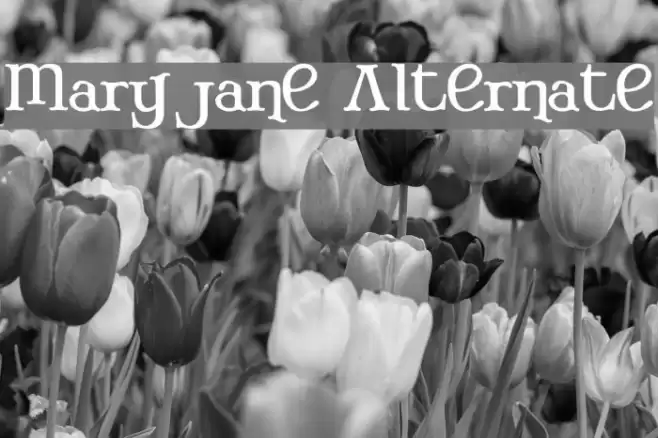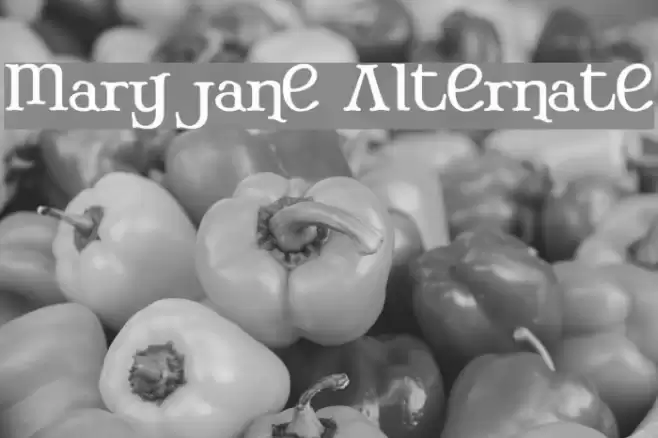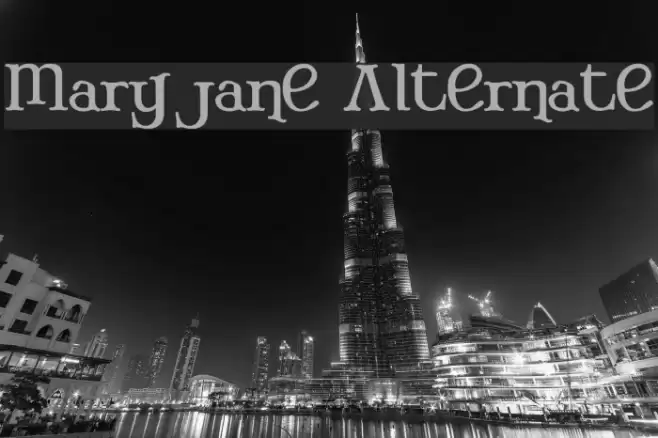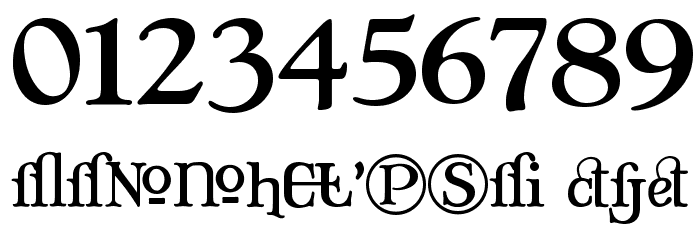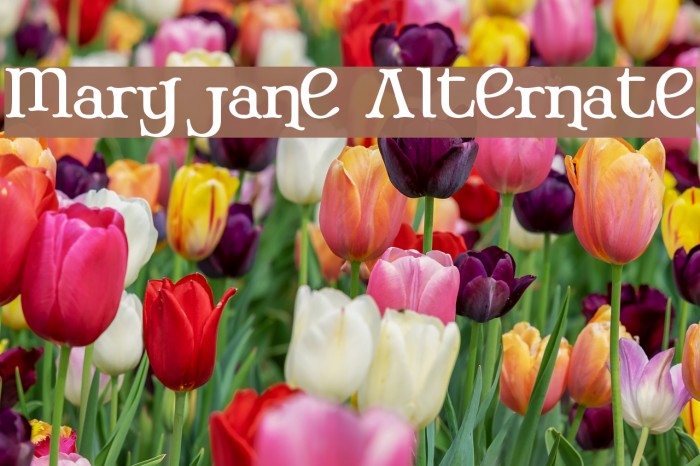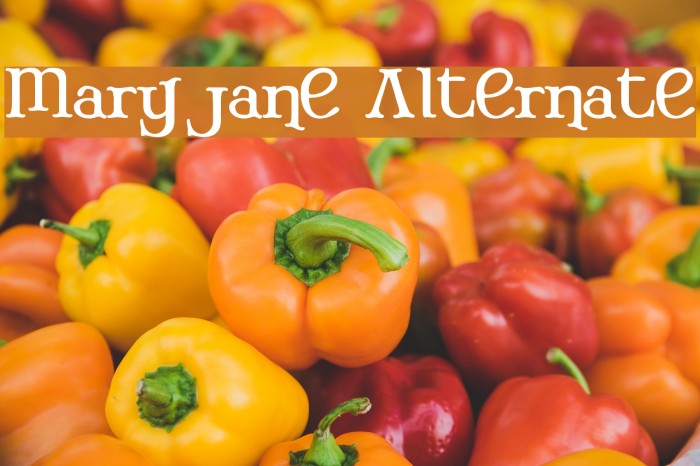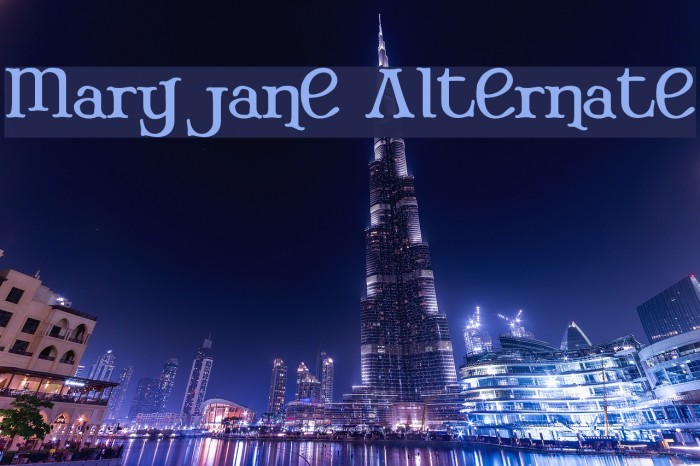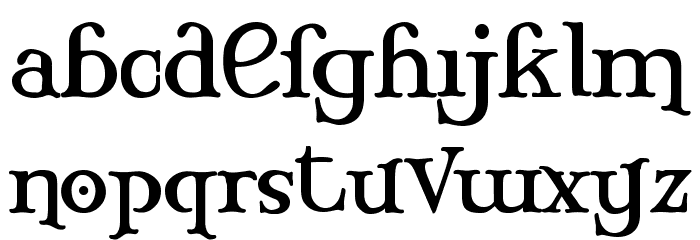
Mary Jane Alternate Font
Mary Jane Alternate Description
This font features a unique blend of modern and vintage styles, characterized by its decorative and slightly whimsical letterforms. The uppercase letters are bold and commanding, with distinct serifs and a playful twist in their structure. The lowercase letters maintain a consistent style, with rounded edges and a slight tilt, adding to the font's charm. Numbers are bold and clear, making them easily readable. Special characters are creatively designed, adding to the font's overall decorative appeal. The font's style is both artistic and functional, suitable for a variety of creative projects.
A decorative font with a blend of modern and vintage styles, featuring playful serifs and whimsical letterforms from Serif fonts.
- Proposed Projects: Ideal for creative projects such as posters, invitations, branding, and packaging design where a unique and artistic touch is desired.